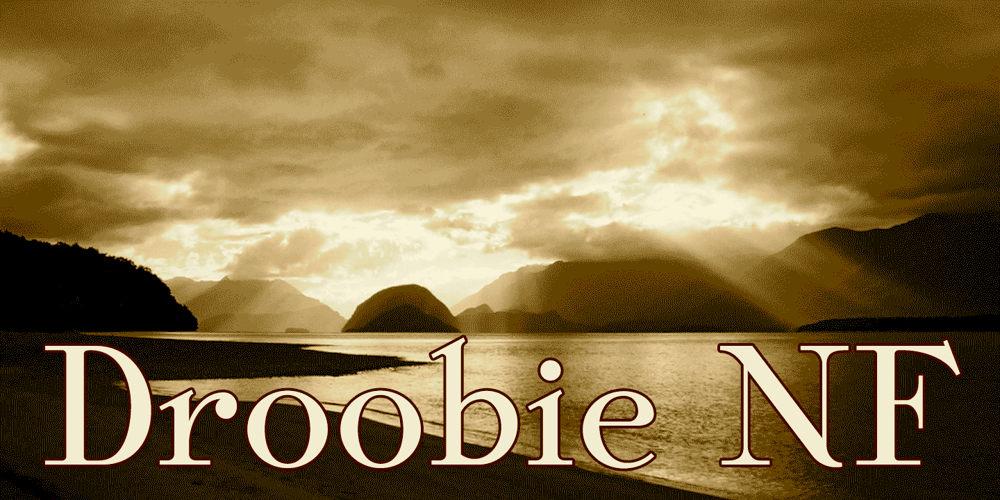
Droobie NF Font Family was designed by Nick Curtis and published by Nick’s Fonts. Droobie NF contains 1 styles and family package options. An offering from the 1910 specimen book from Inland Type Foundry, originally called Drew, provided the pattern for this engaging little face. Both versions support the Latin 1252, Central European 1250, Turkish 1254 and Baltic 1257 codepages.